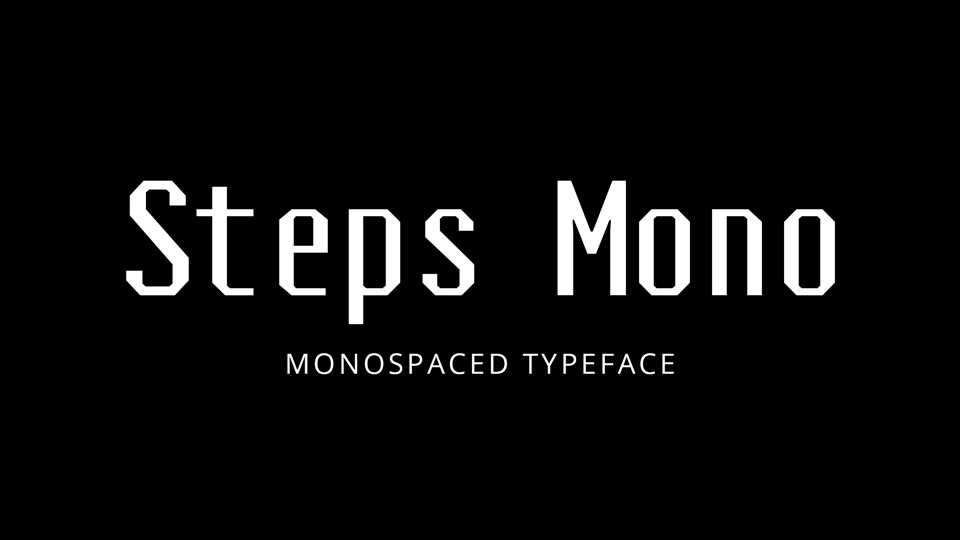
Download Steps Mono typeface, a monospaced font family in Regular and Thin weights. Created for the french magazine Étapes, it works great for headlines and posters, but also it’s suitable for text.
Designer: Velvetyne TF